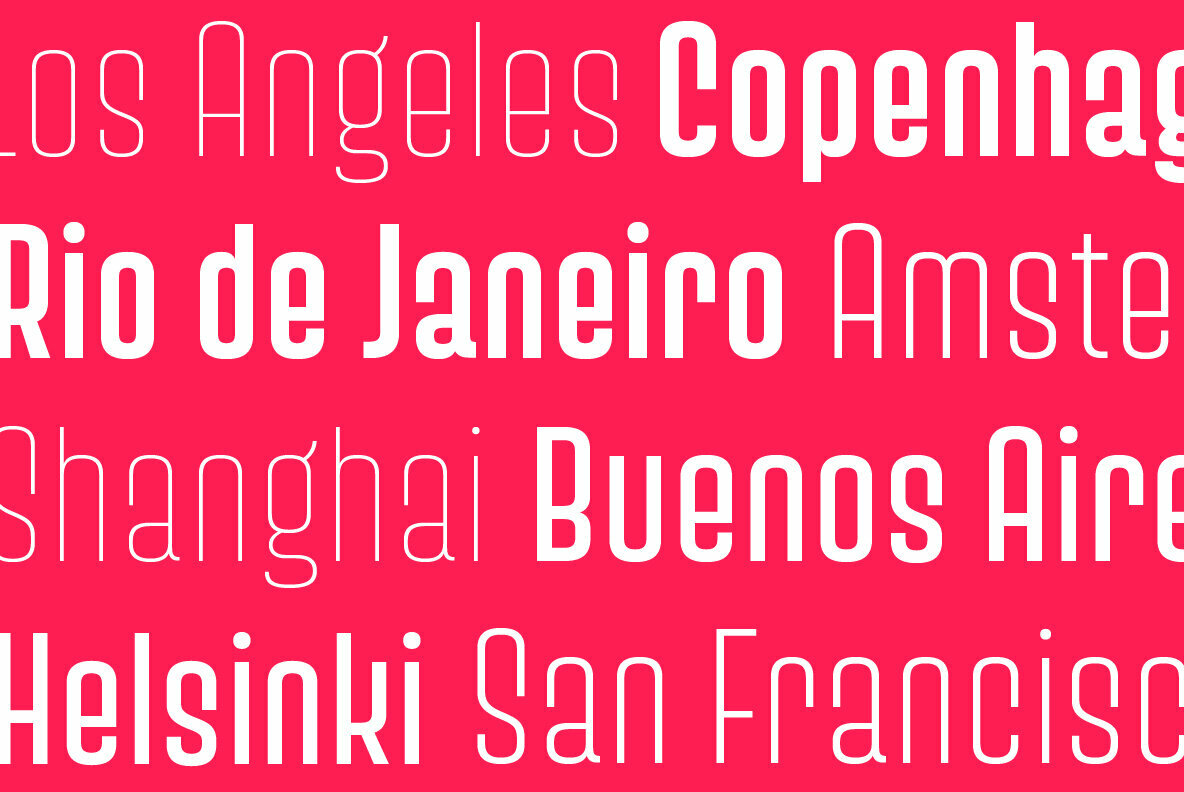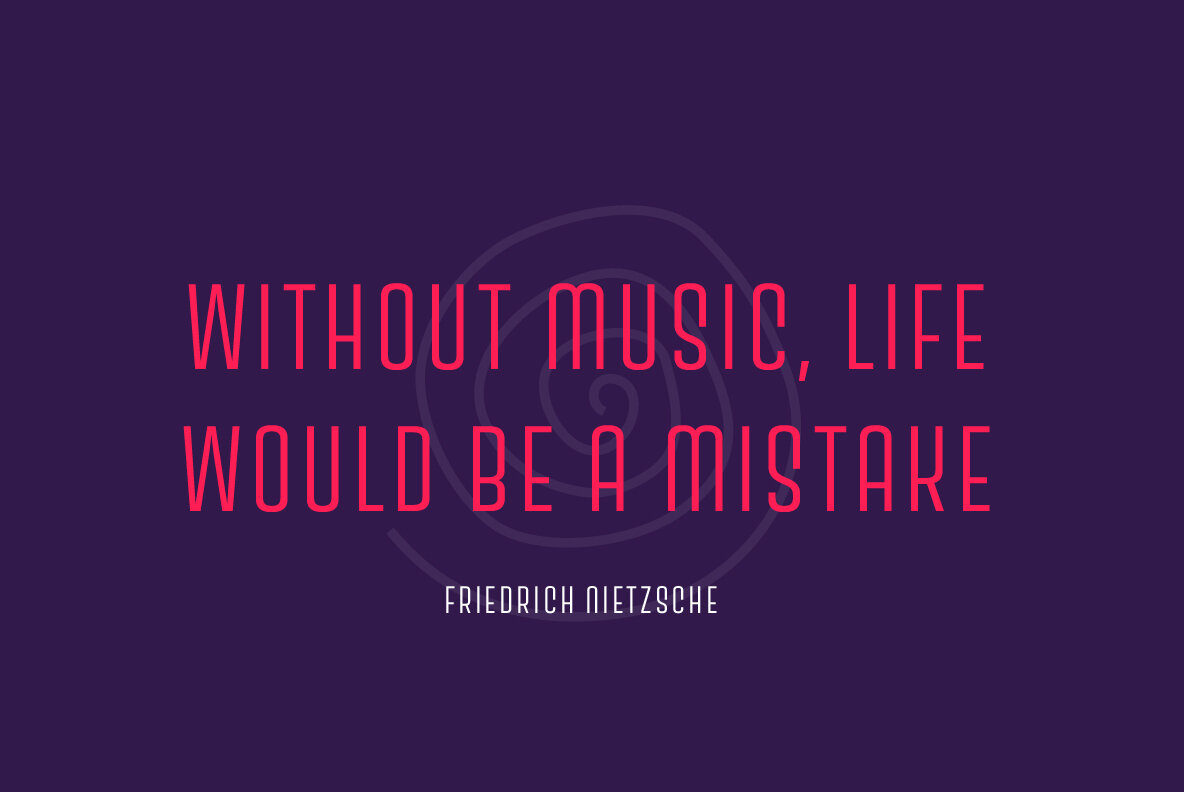
Surimi Black Font Free Download . This is a cool, bold and neat display typeface manufactured by jcfonts. surimi is a condensed display typeface available in six styles. Designed to stand out with its low crossbars and its unicase alternates, this cool. surimi is a condensed display typeface in six styles. Ttfautohint (v1.5);com.myfonts.easy.jcfonts.surimi.black.wfkit2.version.5hcz font (font family name: surimi black version 1.00 font (font family name: surimi black show fontset Designed to stand out with its low crossbars and unicase alternates, this. Designed to stand out with its low crossbars and. similar fonts for surimi black otf (900) from myfonts.com Regular), 412 characters in total. surimi display font. surimi font is a condensed display typeface available in six styles.
This is a cool, bold and neat display typeface manufactured by jcfonts. surimi is a condensed display typeface in six styles. Designed to stand out with its low crossbars and. Designed to stand out with its low crossbars and unicase alternates, this. surimi display font. surimi font is a condensed display typeface available in six styles. similar fonts for surimi black otf (900) from myfonts.com Ttfautohint (v1.5);com.myfonts.easy.jcfonts.surimi.black.wfkit2.version.5hcz font (font family name: Designed to stand out with its low crossbars and its. surimi black version 1.00 font (font family name:
Surimi Black Font Free Download Designed to stand out with its low crossbars and unicase alternates, this. surimi is a condensed display typeface in six styles. This is a cool, bold and neat display typeface manufactured by jcfonts. surimi is a condensed display typeface available in six styles. Ttfautohint (v1.5);com.myfonts.easy.jcfonts.surimi.black.wfkit2.version.5hcz font (font family name: surimi font is a condensed display typeface available in six styles. surimi black version 1.00 font (font family name: surimi black show fontset Regular), 412 characters in total. Designed to stand out with its low crossbars and its unicase alternates, this cool. Designed to stand out with its low crossbars and its. Designed to stand out with its low crossbars and unicase alternates, this. similar fonts for surimi black otf (900) from myfonts.com surimi display font. Designed to stand out with its low crossbars and.